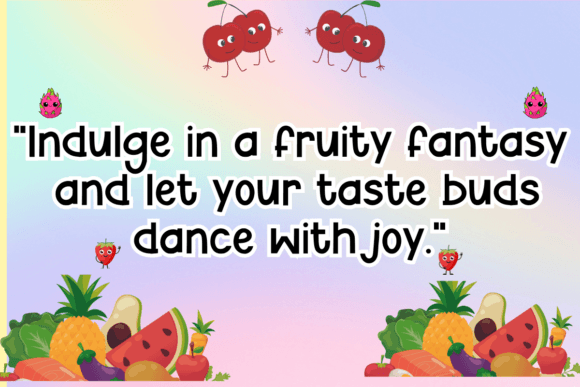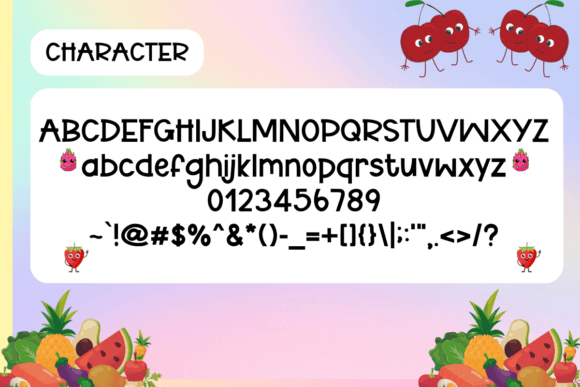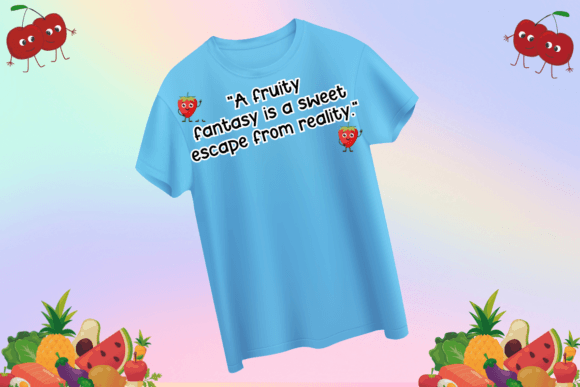
Introduction to Fruity Fantasy Font
Remember that moment when you’re working on a creative project and everything falls into place? The design is perfect, the colors are vibrant, and the text is just right. For many designers, the right font can be the difference between a good design and a great one. And that’s where the Fruity Fantasy Font comes in – a fun sans serif font that’s perfect for adding a touch of whimsy to your designs.
As a valuable design resource, the Fruity Fantasy Font is ideal for a wide range of creative ideas, from memos and journals to interior KDPs and cards. Its transparent background and high-quality design make it a versatile choice for designers who want to create unique and eye-catching designs. And the best part? It’s available for free download, making it an accessible resource for designers of all levels.
- Unique, whimsical design elements, making it an excellent choice for those seeking a distinctive and eye-catching design resource.
Honest Review: Fruity Fantasy Font
I recently stumbled upon the Fruity Fantasy Font and decided to give it a try for my next creative project. As a designer, I’m always on the lookout for high-quality design resources that can elevate my work. I’m happy to report that this font fits the bill.
Here are some things that I like about the Fruity Fantasy Font:
- ✨ Unique and playful design that adds a touch of whimsy to any project
- ✨ High quality and crisp, making it perfect for both digital and print designs
While I was impressed with the Fruity Fantasy Font, there are a few limitations to keep in mind:
- ⚠️ Limited font styles available, which may not be suitable for projects that require a wide range of font options
- ⚠️ Not suitable for formal or professional projects, as it has a more playful tone
Overall, I’m pleased with the Fruity Fantasy Font and would definitely consider using it for future projects. Its unique design and high quality make it a valuable addition to any designer’s toolkit. Just be aware of its limitations and use it judiciously to get the best results.
Fruity Fantasy Font is a high-quality design resource ideal for creative projects. Its unique and playful style makes it perfect for adding a touch of whimsy to your designs. With a transparent background, you can easily integrate it into your projects without any background distractions.
To get the most out of Fruity Fantasy Font, experiment with different font sizes, colors, and combinations. You can also use it in conjunction with other design elements to create a unique and eye-catching look.
Fruity Fantasy Font is perfect for creative projects, including social media graphics, party invitations, and children’s educational materials. Its playful style makes it ideal for adding a touch of fun and whimsy to your designs.